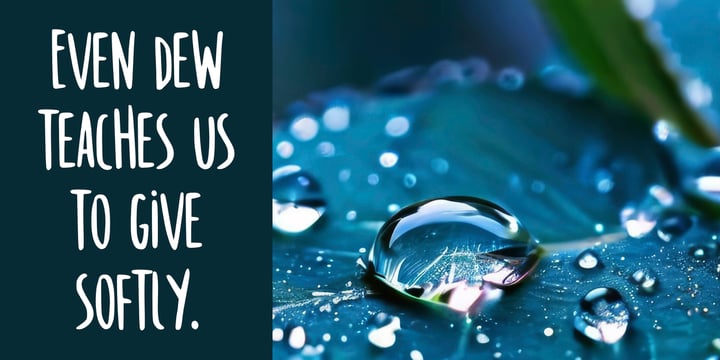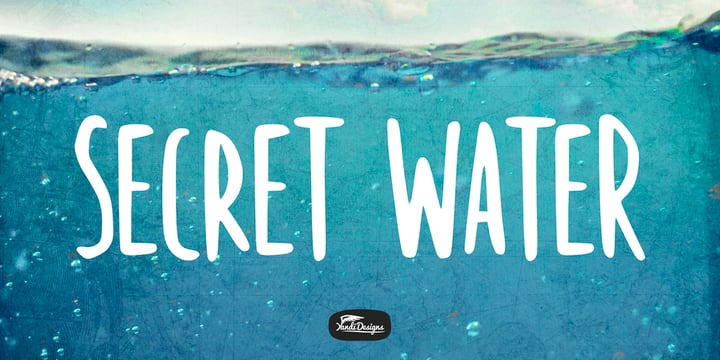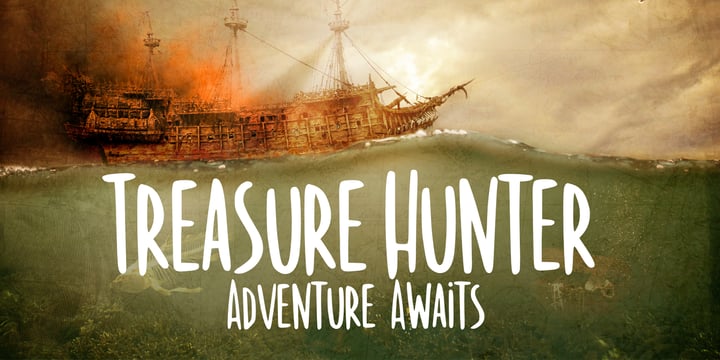
Yandi Adi Prasetya
Yandi Adi Prasetya, known professionally as YandiDesigns, is a graphic and type designer from Indonesia. With a deep passion for letters and visual storytelling, Yandi has been creating unique and expressive typefaces that blend creativity, functionality, and emotional character.
Starting his design journey as a self-taught graphic designer, Yandi developed a keen eye for typography and branding. His works are inspired by everyday culture, modern trends, and traditional Indonesian aesthetics — forming a balance between artistic flair and practical usability.